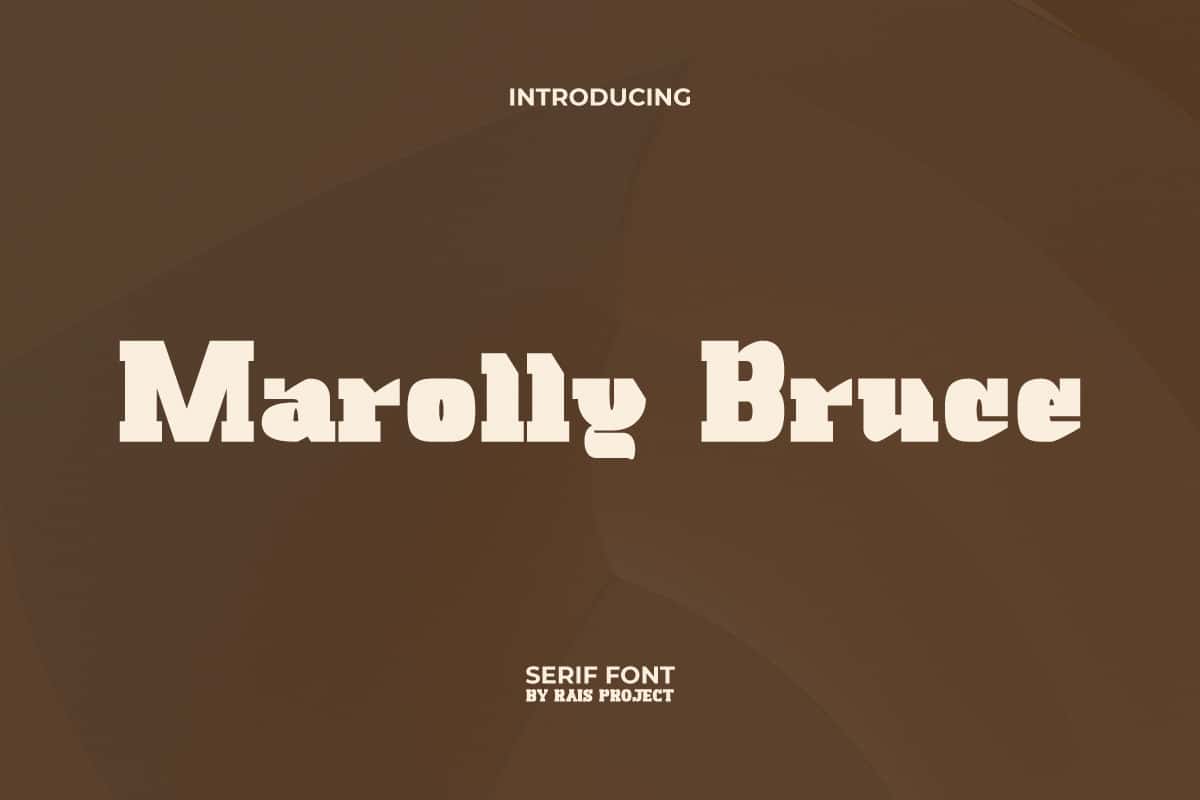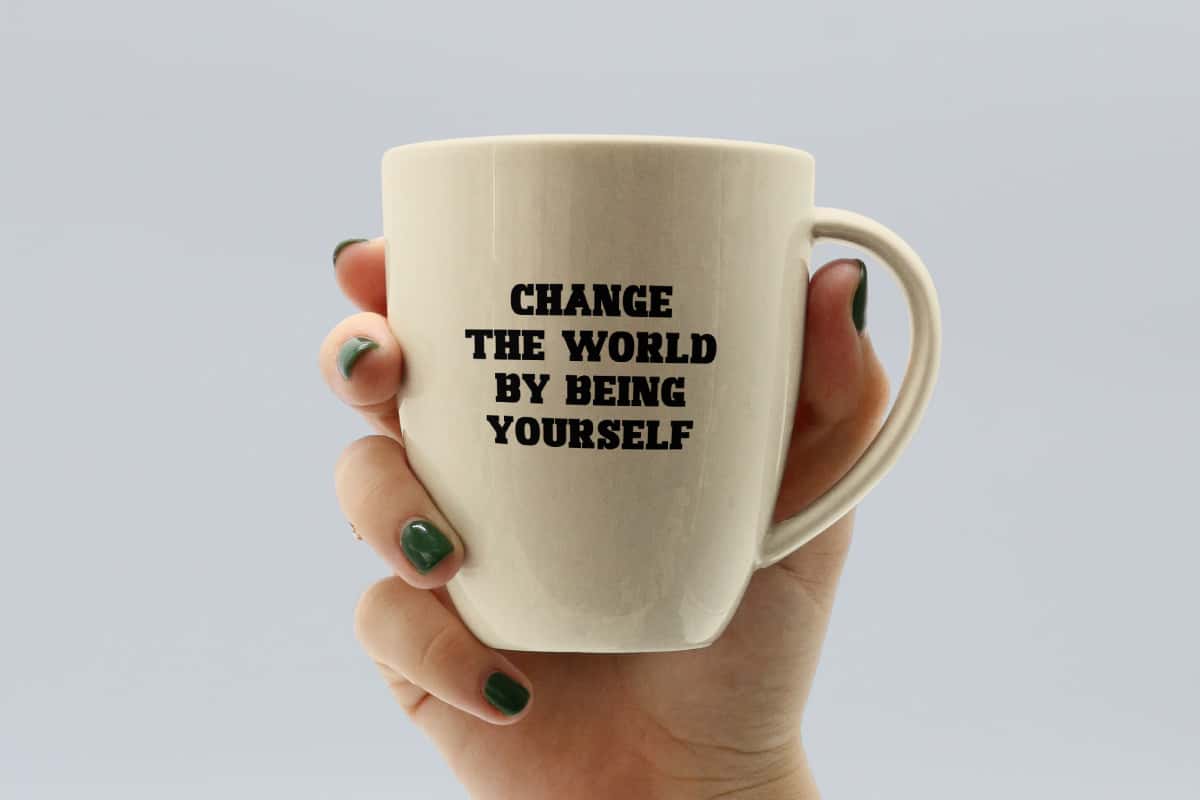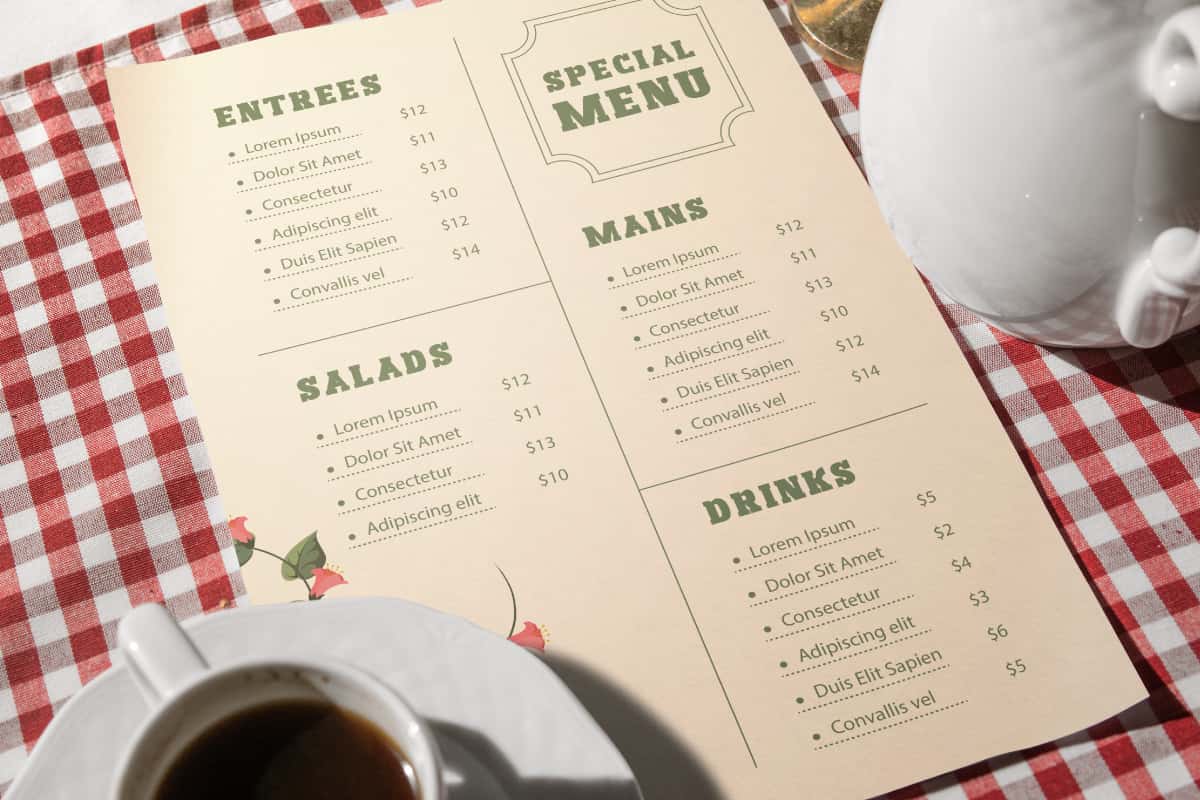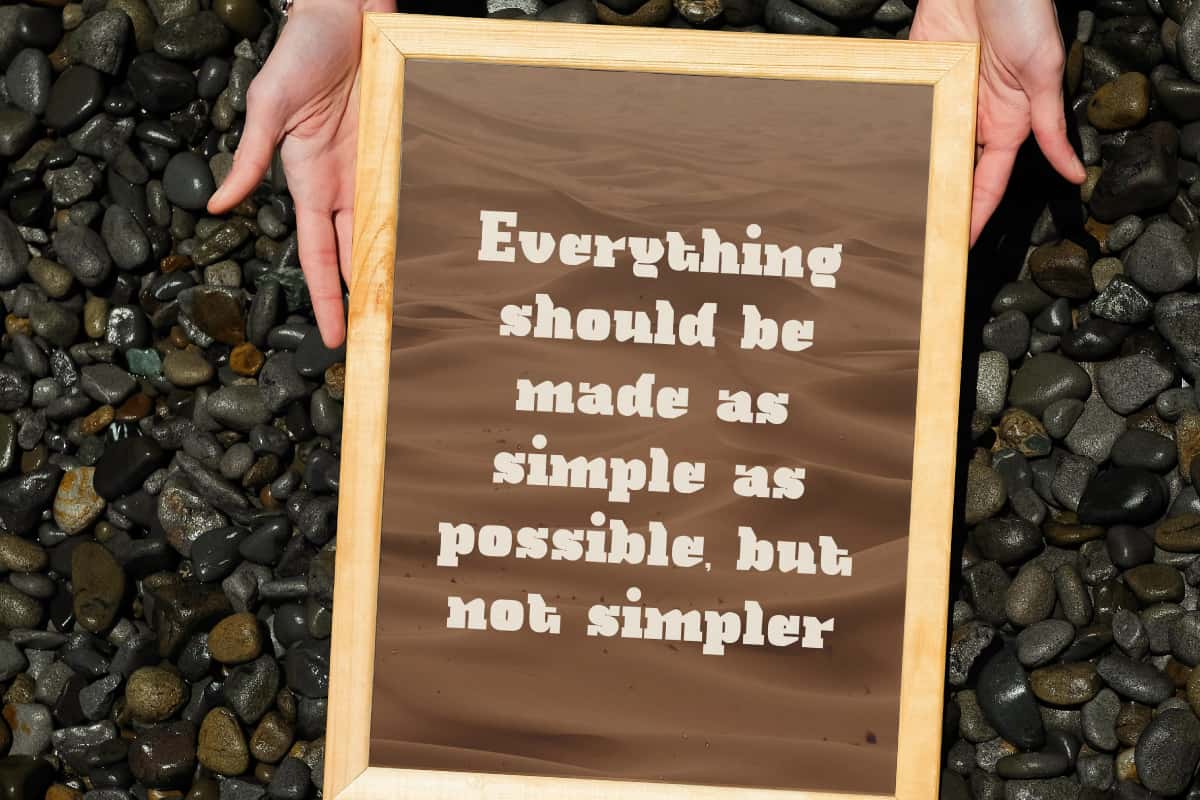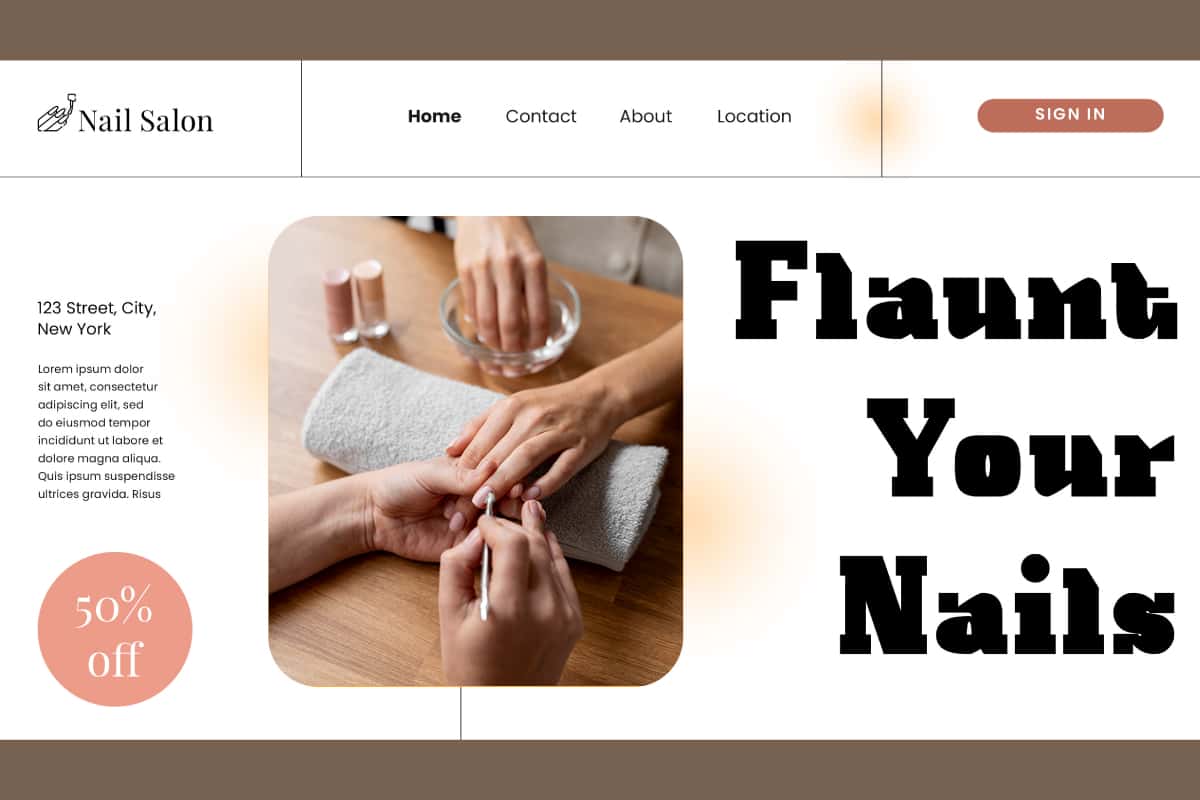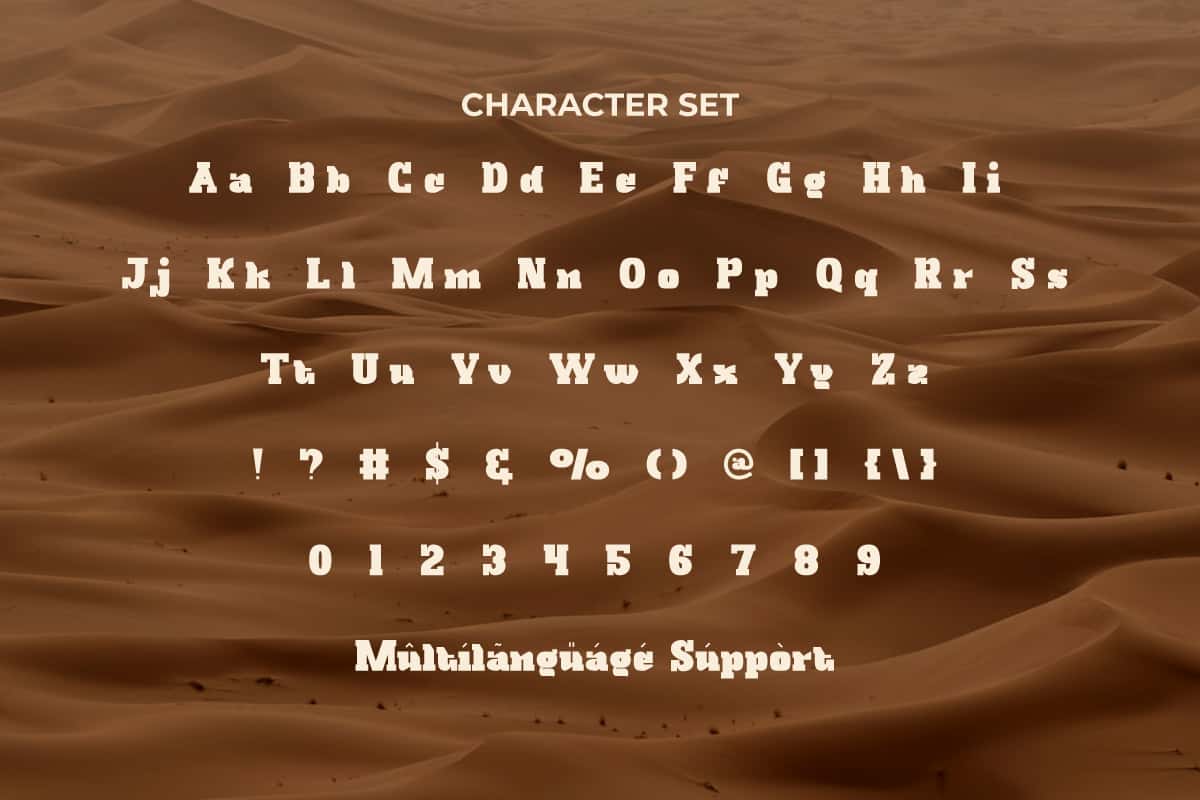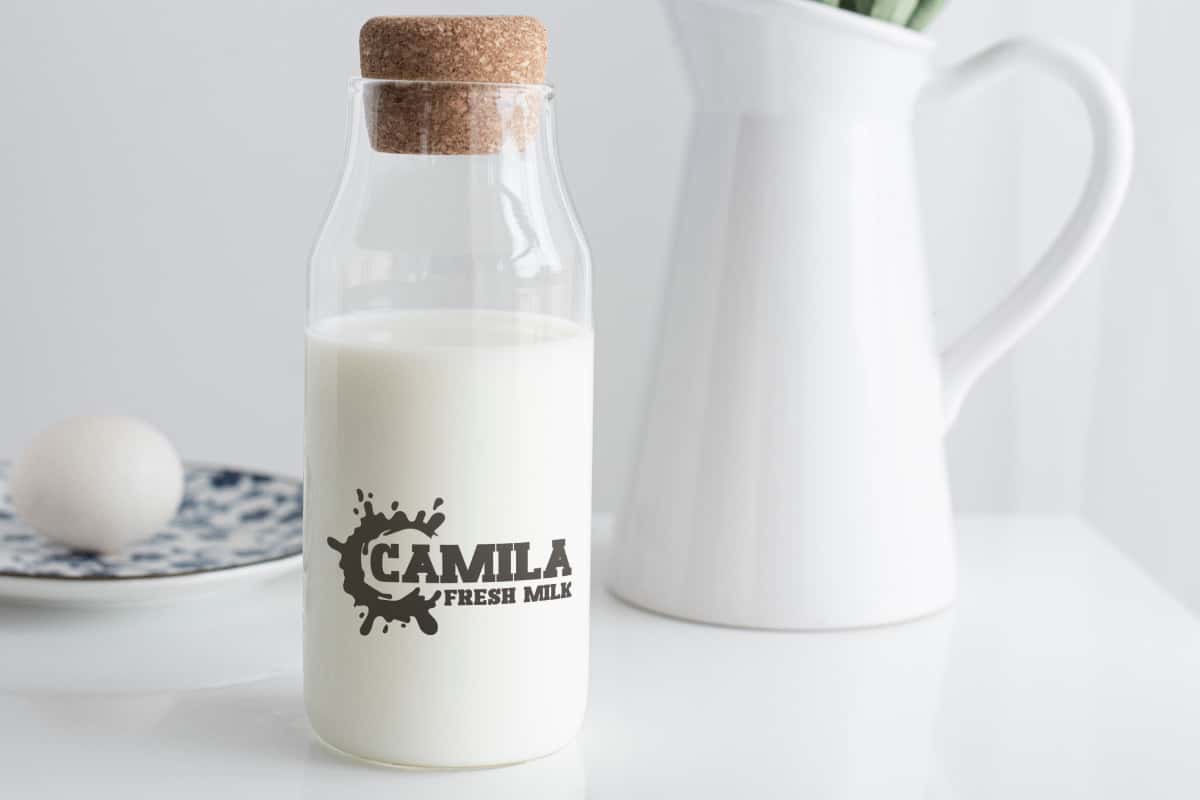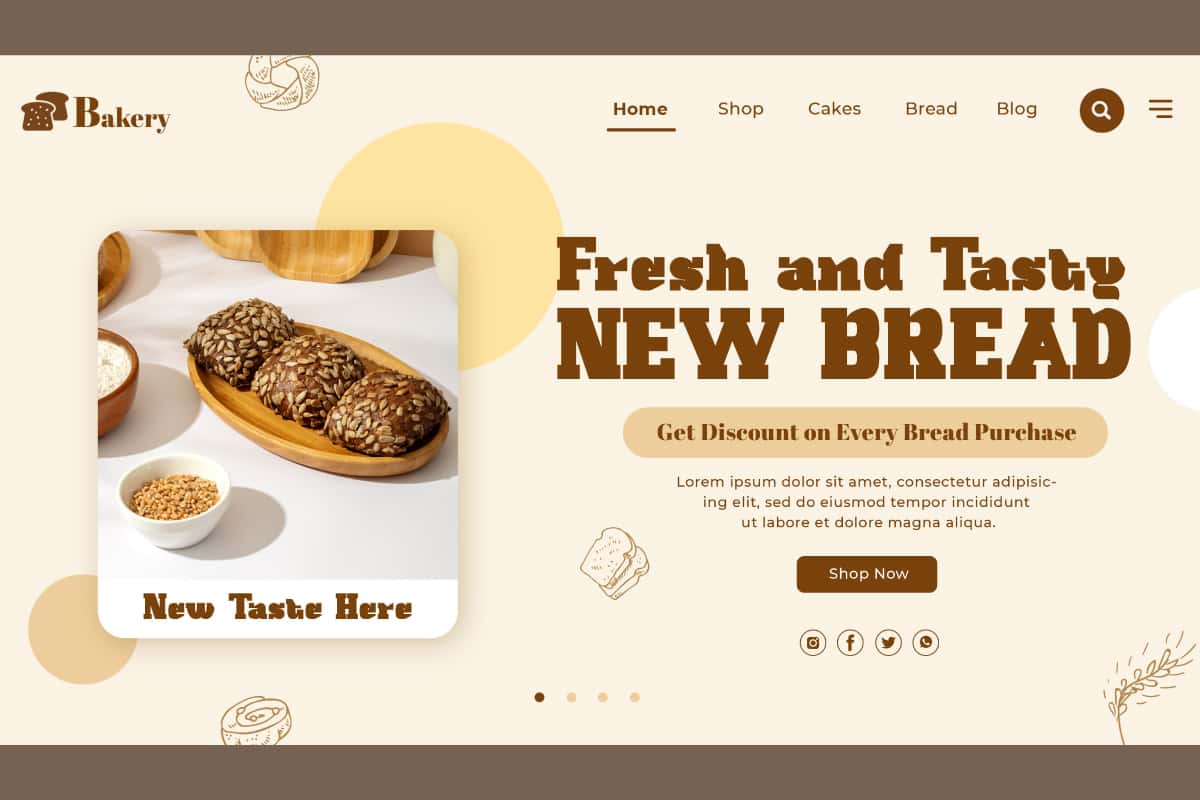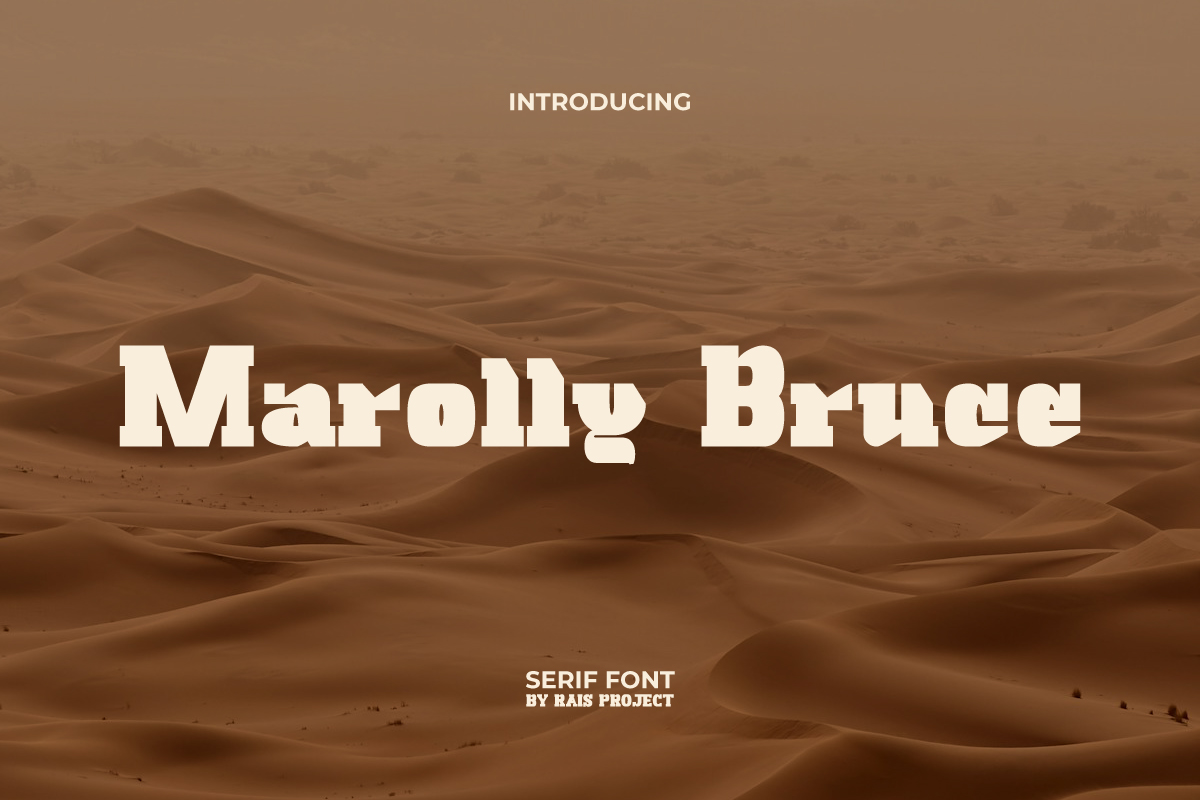
Marolly Bruce Font is an aesthetic display font that comes with slab cube edges serif look. This font display has a unique character so it can add an attractive aesthetic to your design. It will look good on invitation, stationery, poster, custom design, brand image, advertisement, label, marketing material, website page, and more! You can see the demo font below, input any word you want so you can see what it looks like: